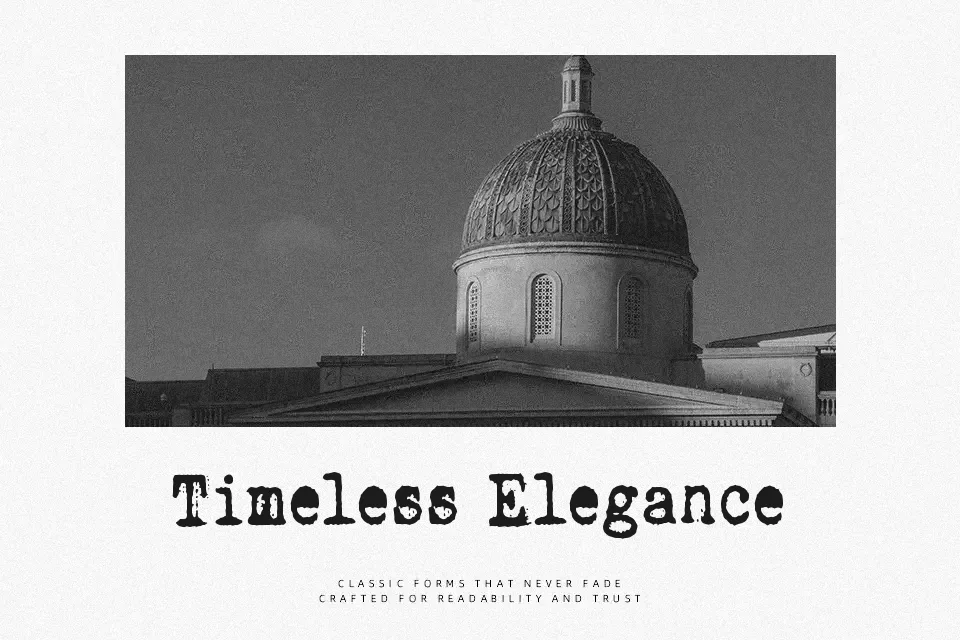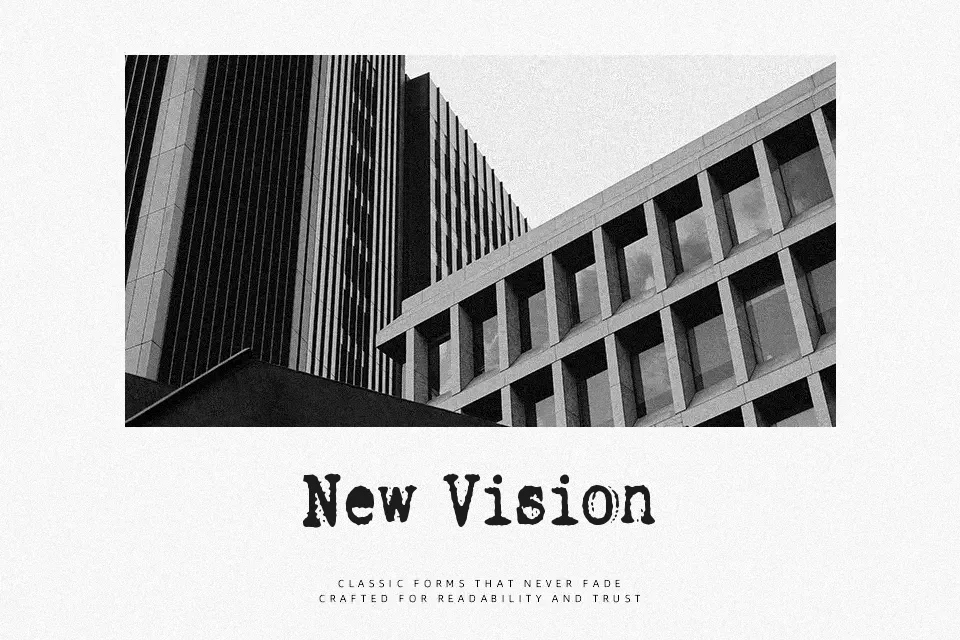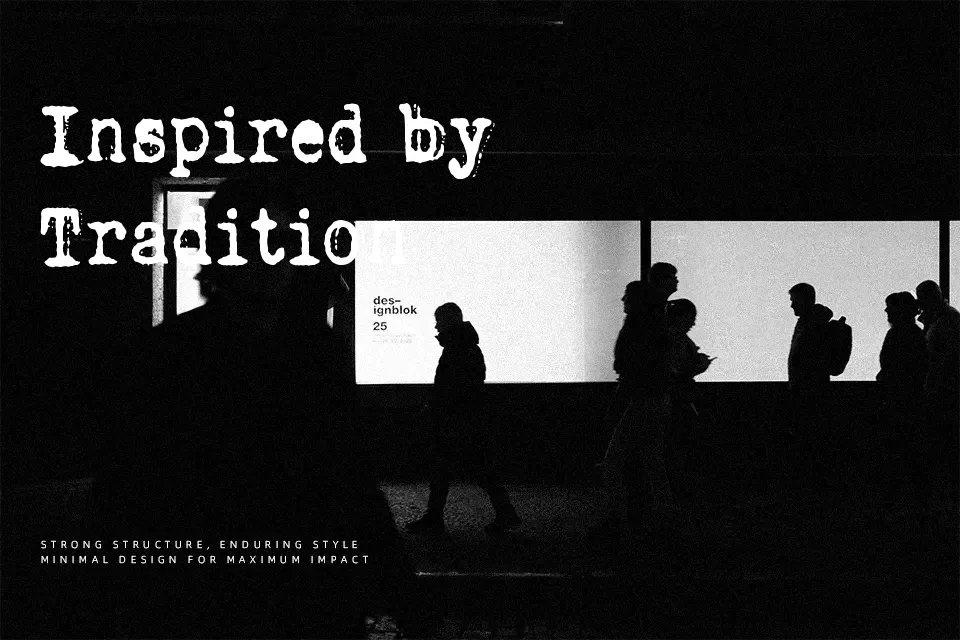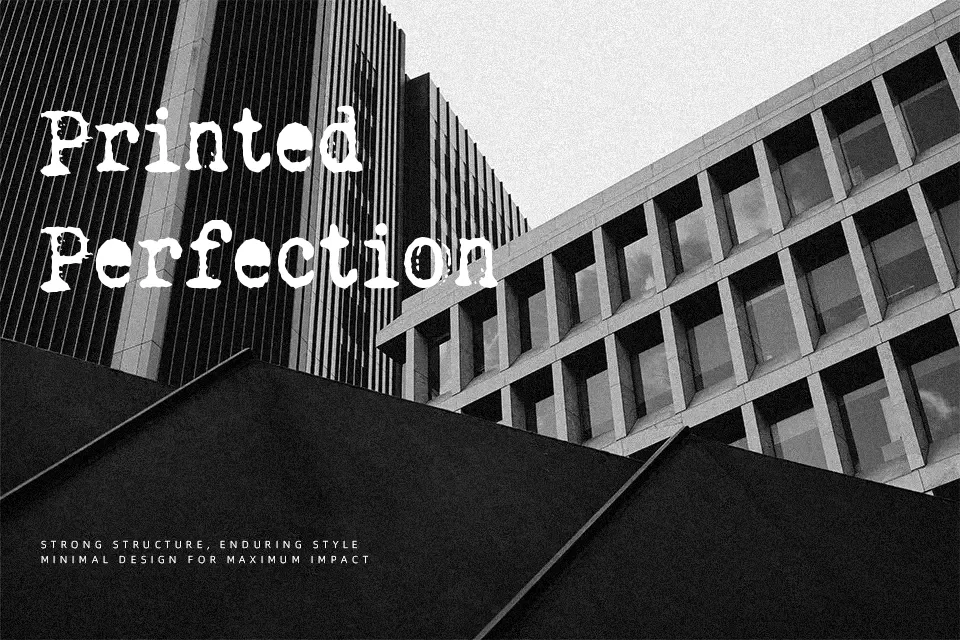
Rough Serif Font
Designed by Lukas Krakora
Rough Serif Font features a distressed, mechanical structure that accurately reproduces the unpredictable ink spread of an antique typewriter. The letterforms are characterized by uneven stroke weights, textured edges, and prominent, blocky serifs that anchor each character. Spacing is relatively open, allowing the distressed details to remain visible without causing the letters to bleed together at moderate sizes. These textured characteristics make the typeface an excellent choice for vintage packaging, crime novel covers, and retro editorial layouts. The distressed spacing helps maintain clarity in larger headlines, providing a strong analog presence. However, the heavy textural damage reduces continuous reading comfort, meaning this typeface becomes significantly less effective when applied to lengthy paragraphs or small interface labels.
Best For: vintage product packaging, crime novel covers, retro editorial layouts, music festival posters
Not Ideal For: long paragraph text, small interface labels, corporate reports
Perfect for editorial, headline, and packaging, with a grunge and display style.